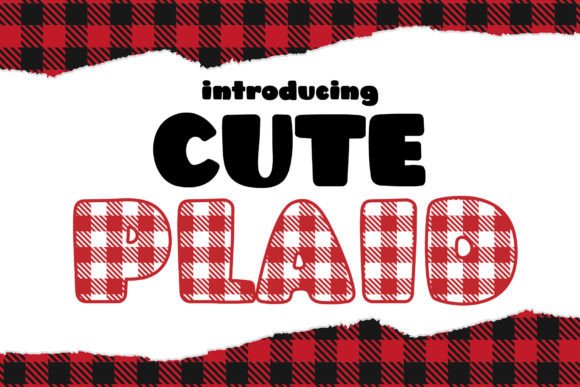
Introducing Cute Plaid Font - the Best Font For A Band Web Site! Created by the talented Fox7, this decorative font is not just your ordinary font. It's a font that brings cuteness, casualness, and friendliness to your designs, making them truly stand out among the rest.
Are you looking to add a touch of charm and playfulness to your Xmas projects? Or perhaps you want to create captivating fall-themed designs that leave a lasting impression? Look no further than Cute Plaid Font. With its unique style and character, it's the perfect choice for any festive or seasonal project you have in mind.
But that's not all. This versatile font goes beyond holiday designs. It's also ideal for blog posts, logos, branding, ads, invitations, greeting cards, planners, photo albums, decorations, and so much more. With Cute Plaid Font, the possibilities are endless. Let your creativity run wild and watch as your designs come to life with a touch of whimsy.
What sets Cute Plaid Font apart from the rest is its ability to enhance any creation. It's like a magical tool that takes your designs to a whole new level. Whether you're a professional designer or just starting out, this font will be a wonderful asset to your fonts library.
Imagine the reaction of your audience when they see your beautifully crafted designs adorned with Cute Plaid Font. It's like a breath of fresh air, capturing their attention and leaving a lasting impression. Stand out from the crowd and make a statement with this font that exudes personality and creativity.
With Cute Plaid Font, your designs will never be boring or ordinary again. It adds that extra spark, that touch of uniqueness that sets you apart from the competition. Let your creativity shine and watch as your creations become unforgettable masterpieces.